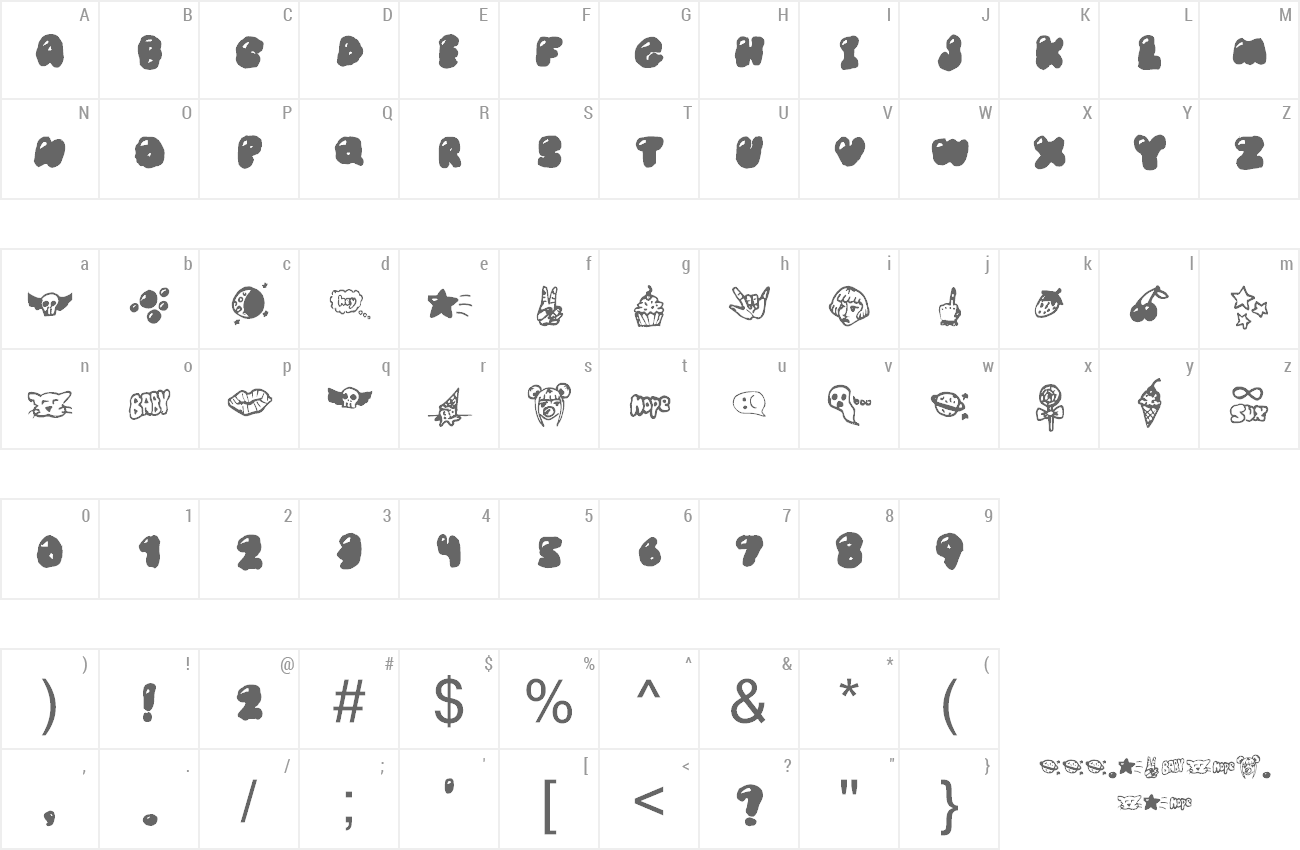
| Font name: | Bubblegum Baby |
| Author: | Alanna Milstein |
| Note by Alanna Milstein | |
| Uppercase is letters, lowercase is webdings. All hand drawn by me |